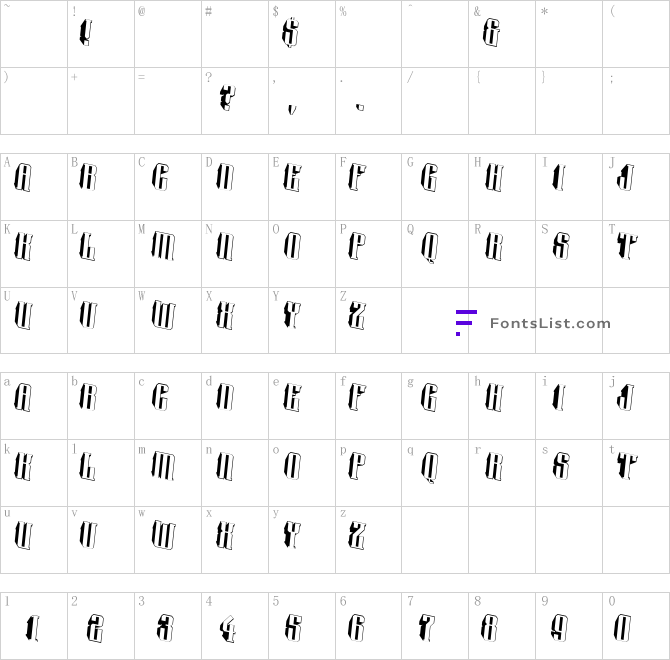
- Full Name:a_Harder3DRightTwist
a_Harder3DRightTwist.ttf is a very beautiful artistic font, a_Harder3DRightTwist.ttf is widely used in the design and printing of various books and pictures,a_Harder3DRightTwist.ttf has a strong visual impact,a_Harder3DRightTwist.ttf is a commonly used font in newspapers, magazines and books, and is used in posters, e-commerce Poster design, store design, logo design, font design and other fields.a_Harder3DRightTwist.